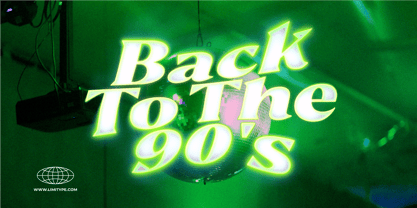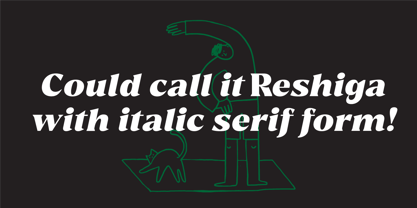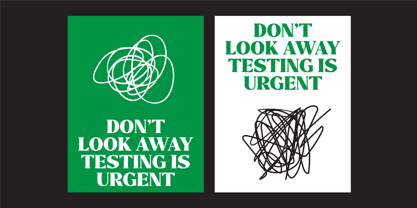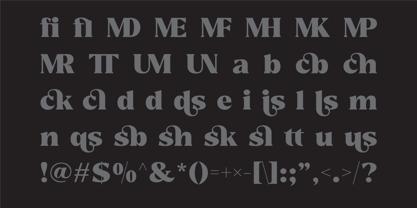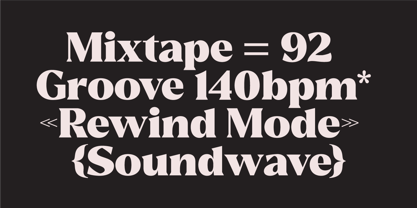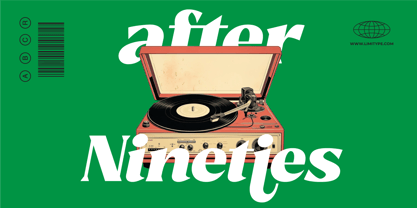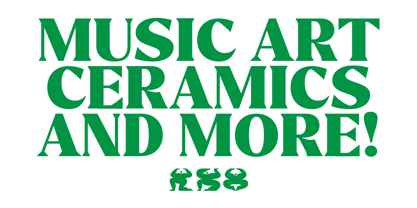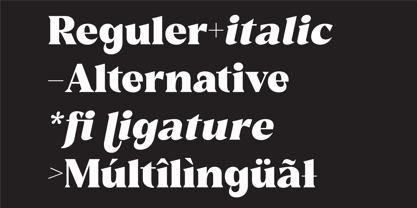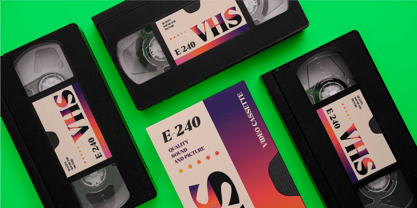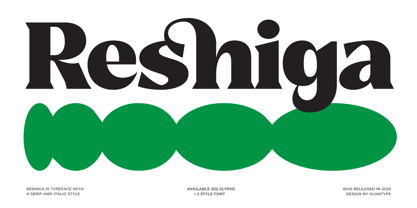
Reshiga
by limitype
The Reshiga Font Family was designed by Muhammad Muammar, Furqan Sudirman and published by limitype. Reshiga contains 2 styles and family package options. More about this family
Reshiga is a versatile display serif font that works beautifully in both modern and classic styles. With its bold and striking appearance, it's perfect for designs that require strong visual impact, such as magazine headlines, posters, banners, and more. Reshiga also comes with a selection of stylish ligature variations to enhance your typography.
Reshiga available with:
- Uppercase
- Lowercase
- Number
- Symbol
- Multilingual
- Ligature
Designers: Muhammad Muammar, Furqan Sudirman